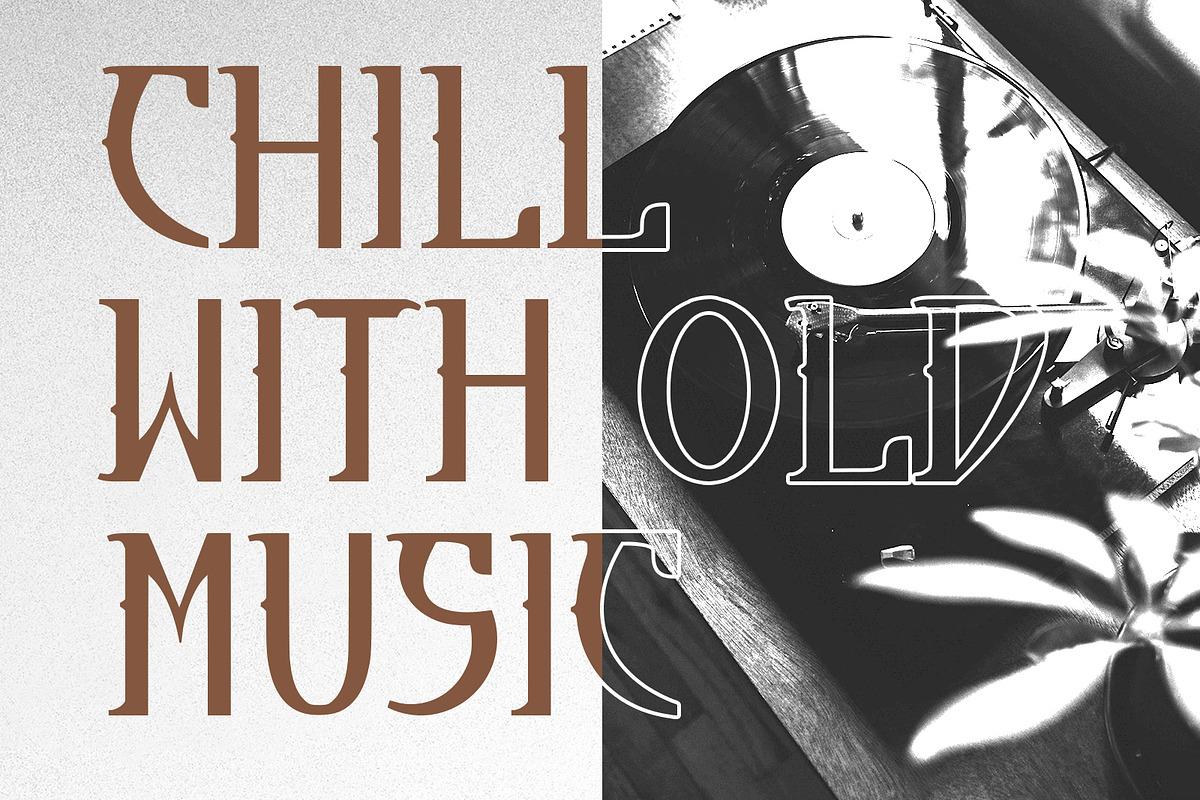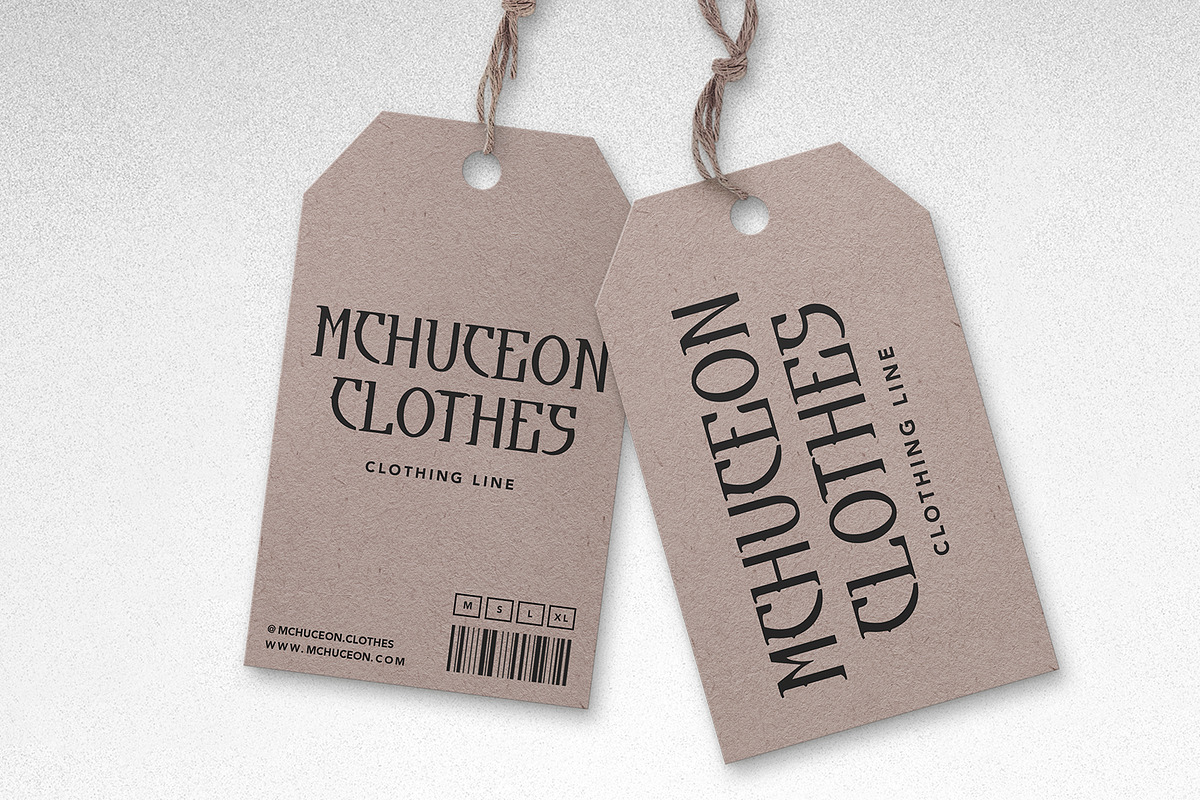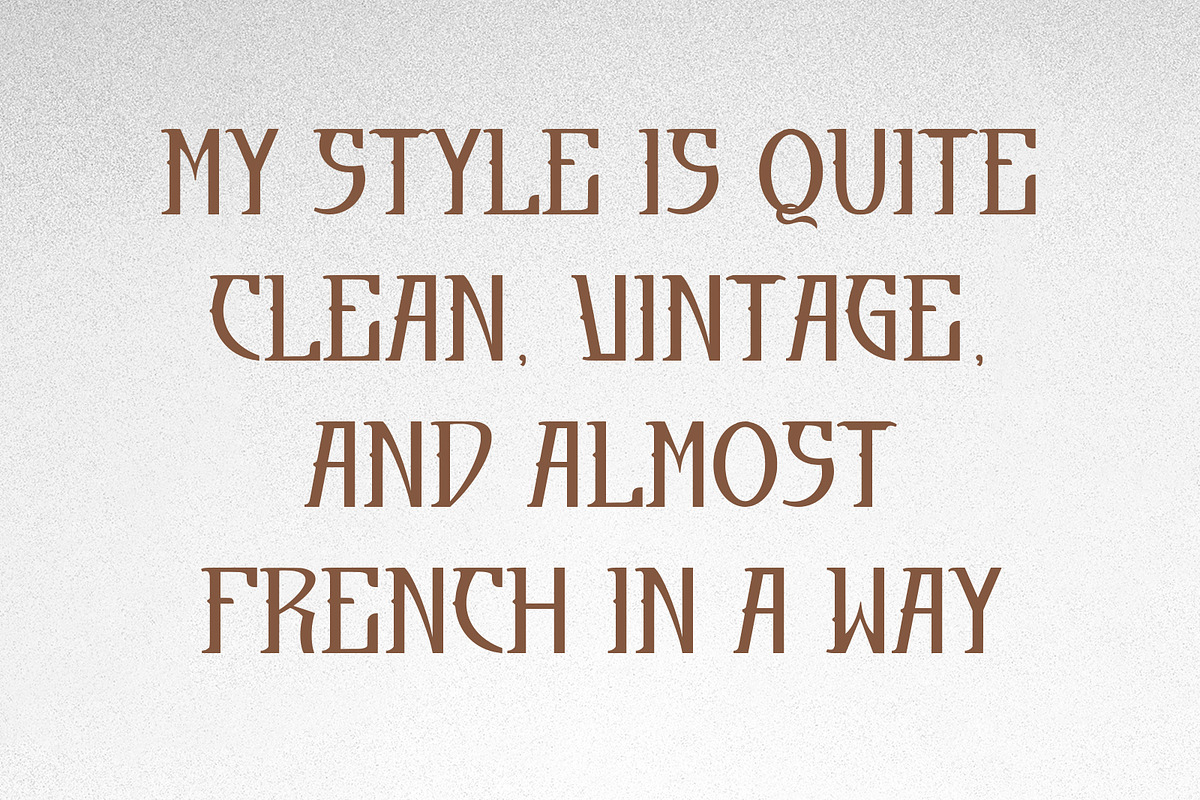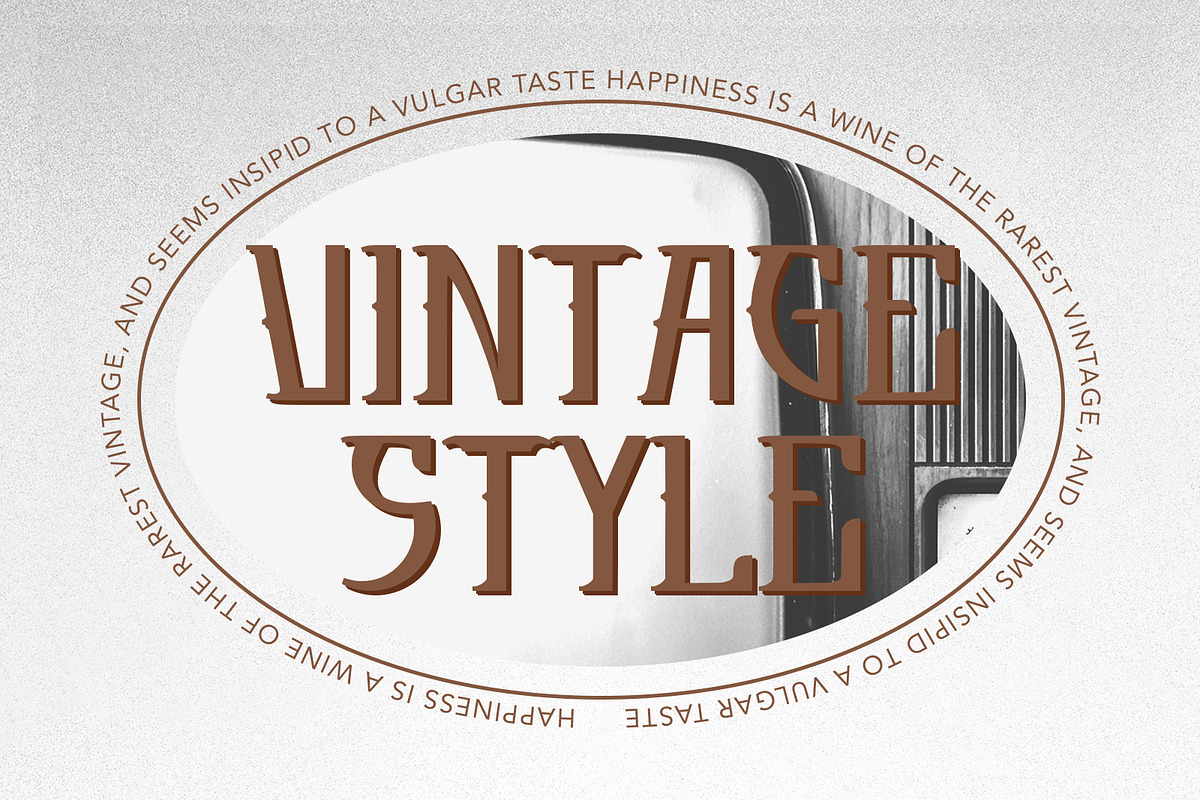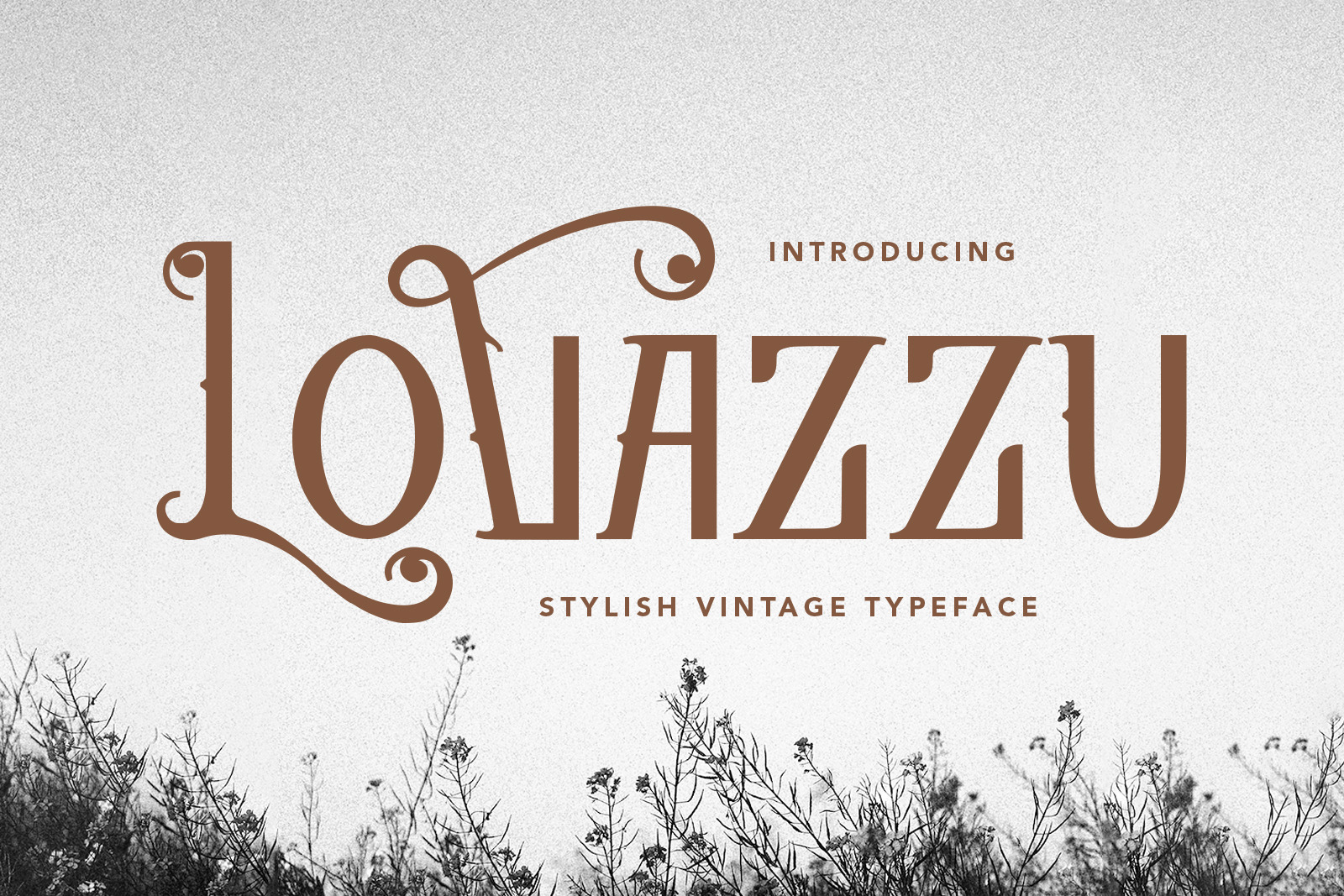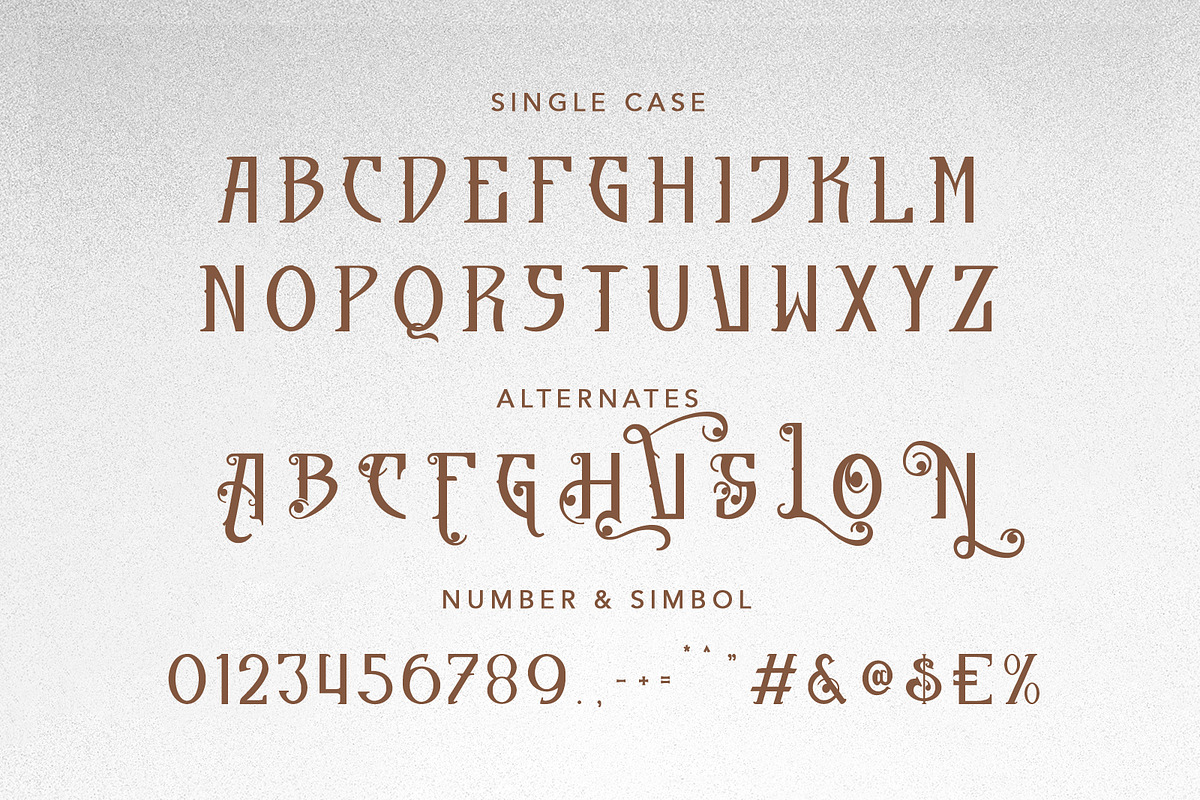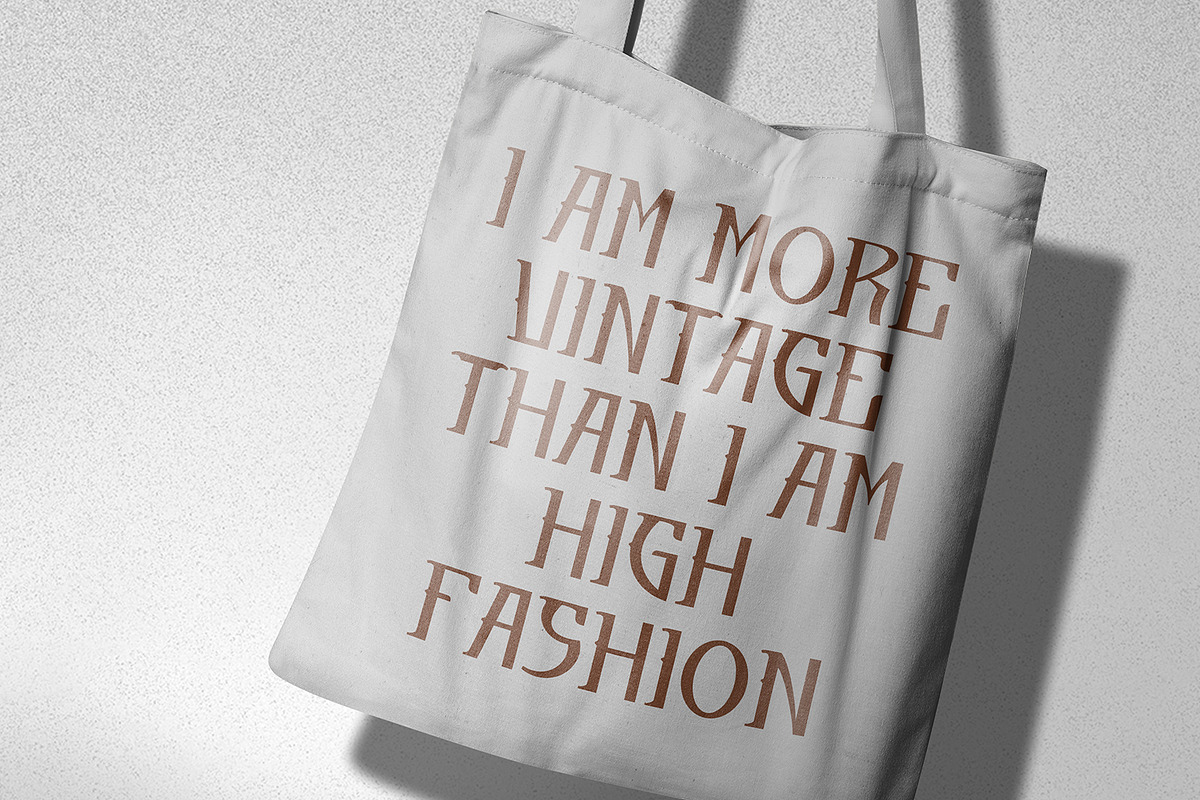
Lovazzu Stylish Vintage Typeface
Lovazzu stylish vintage typeface font. With bold stroke, fun character with a bit of ligatures and alternates. To give you an extra creative work. Lovazzu font support multilingual more than 100+ language. This font is good for logo design, Social media, Movie Titles, Books Titles, a short text even a long text letter and good for your secondary text font with sans or serif. Make a stunning work with Lovazzu font.